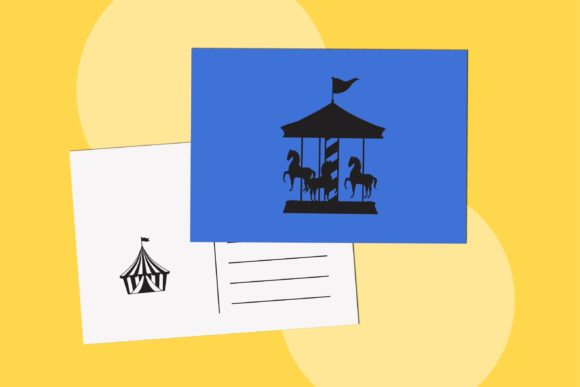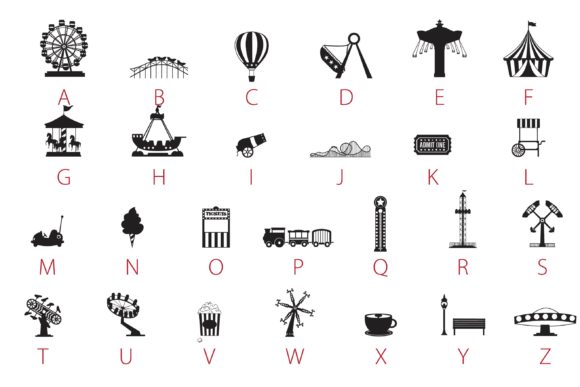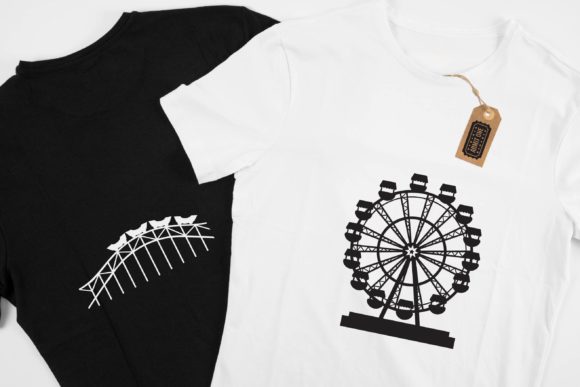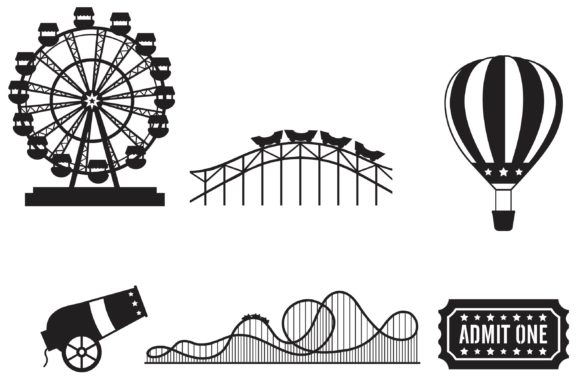
Amusement Park Font: A Fun Dingbats Font for Carnival Enthusiasts
Are you a designer or crafter looking for a unique and playful font to add a touch of excitement to your projects? Look no further than the Amusement Park Font, a fun dingbats font that celebrates the thrill and joy of the carnival. This delightful font features a wide range of glyphs inspired by the iconic attractions and symbols of the amusement park, including hot air balloons, Ferris wheels, and roller coasters.
The Inspiration Behind Amusement Park Font
The Amusement Park Font is the perfect choice for anyone who wants to capture the carefree spirit of the carnival in their designs. The font’s creator was inspired by the vibrant colors, lively atmosphere, and sense of adventure that defines the amusement park experience. Each glyph in the font is carefully crafted to evoke the nostalgia and excitement of a day spent at the fairgrounds, from the majestic hot air balloons soaring through the sky to the thrill of hurtling down a roller coaster track.
Key Features of Amusement Park Font
So, what makes the Amusement Park Font so special? Here are just a few of its key features:
- Wide range of glyphs: The Amusement Park Font includes a vast array of glyphs, from classic carnival icons like cotton candy, popcorn, and ice cream cones to more elaborate illustrations of Ferris wheels, roller coasters, and hot air balloons.
- Fun and playful design: Each glyph in the font is designed to be fun, colorful, and engaging, making it perfect for use in projects where you want to add a touch of whimsy and personality.
- Dingbats font style: The Amusement Park Font is a dingbats font, which means that it’s made up of symbols and illustrations rather than traditional letters and numbers.
- Easily customizable: The font is highly customizable, allowing you to adjust the size, color, and style to suit your design needs.
Uses for Amusement Park Font
The Amusement Park Font is incredibly versatile, and can be used in a wide range of projects, including:
- Party invitations and decorations: Add a touch of carnival magic to your party invitations, banners, and decorations with the Amusement Park Font.
- Branding and advertising: Use the font to create eye-catching logos, posters, and advertisements for businesses and events with a fun and playful theme.
- Scrapbooking and crafting: Add a personal touch to your scrapbook pages and craft projects with the Amusement Park Font’s whimsical illustrations.
- Web design and social media: Use the font to create engaging and shareable content for your website or social media channels.
Tips for Using Amusement Park Font
Here are a few tips for getting the most out of the Amusement Park Font:
- Experiment with different colors and textures: The Amusement Park Font looks great in bright, bold colors, but don’t be afraid to experiment with different textures and patterns to add depth and interest to your designs.
- Mix and match glyphs: The font includes a wide range of glyphs, so don’t be afraid to mix and match them to create unique and interesting combinations.
- Use it sparingly: While the Amusement Park Font is fun and playful, it can be overwhelming if overused. Use it sparingly to add a touch of personality to your designs.
The Amusement Park Font is a fun and playful dingbats font that’s perfect for designers and crafters who want to add a touch of carnival magic to their projects. With its wide range of glyphs, customizable design, and versatile uses, this font is sure to become a favorite in your collection. So why wait? Download the Amusement Park Font today and start creating your own unique and engaging designs!